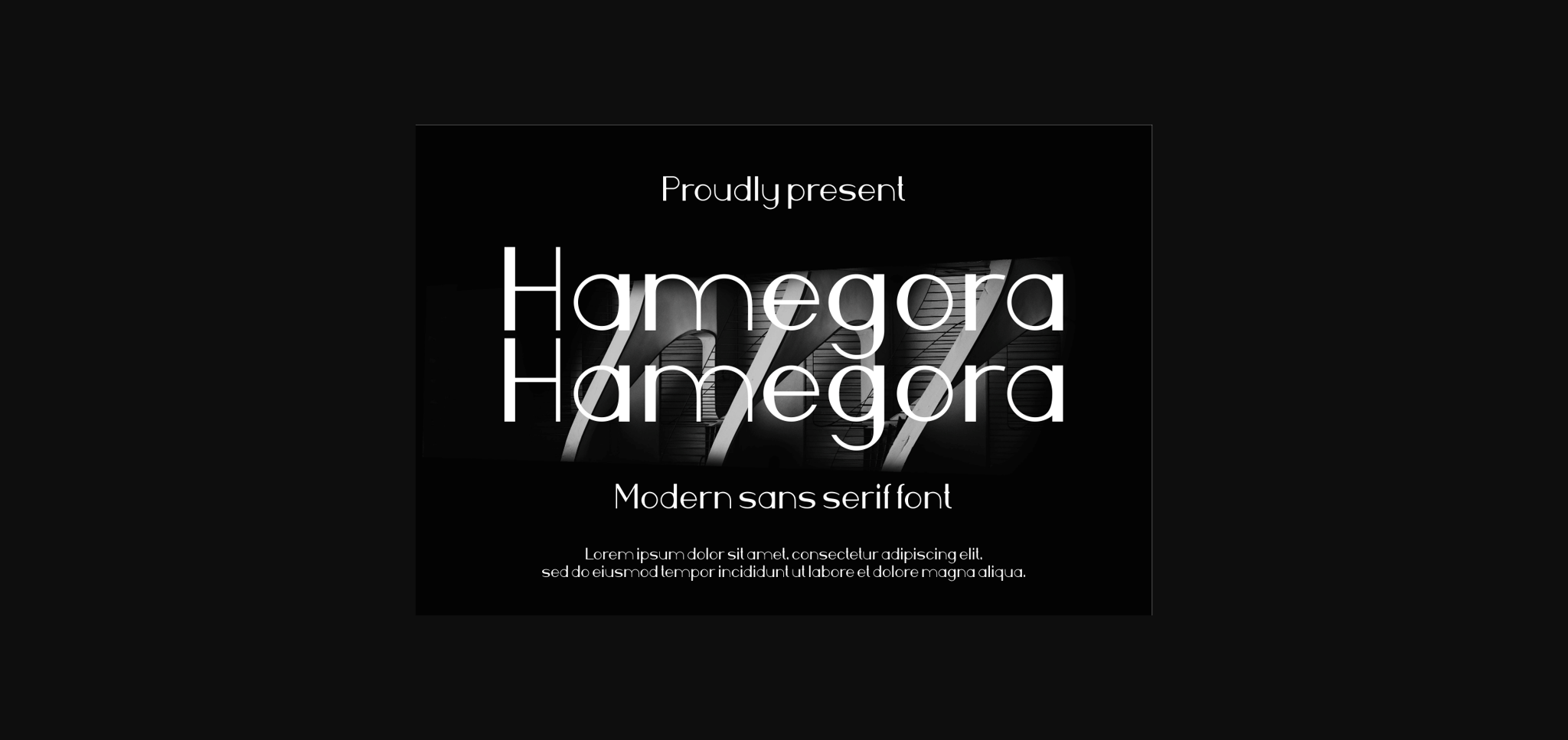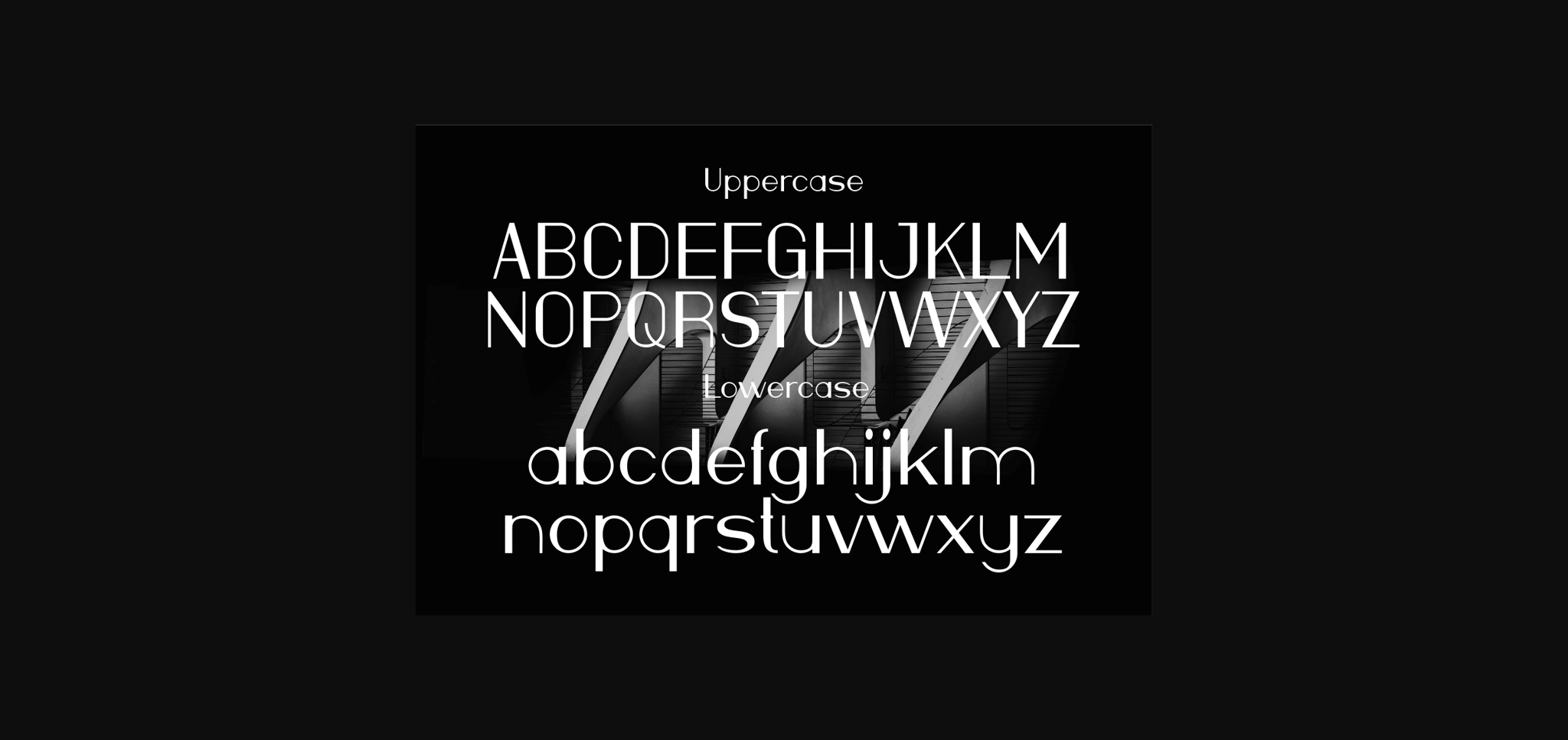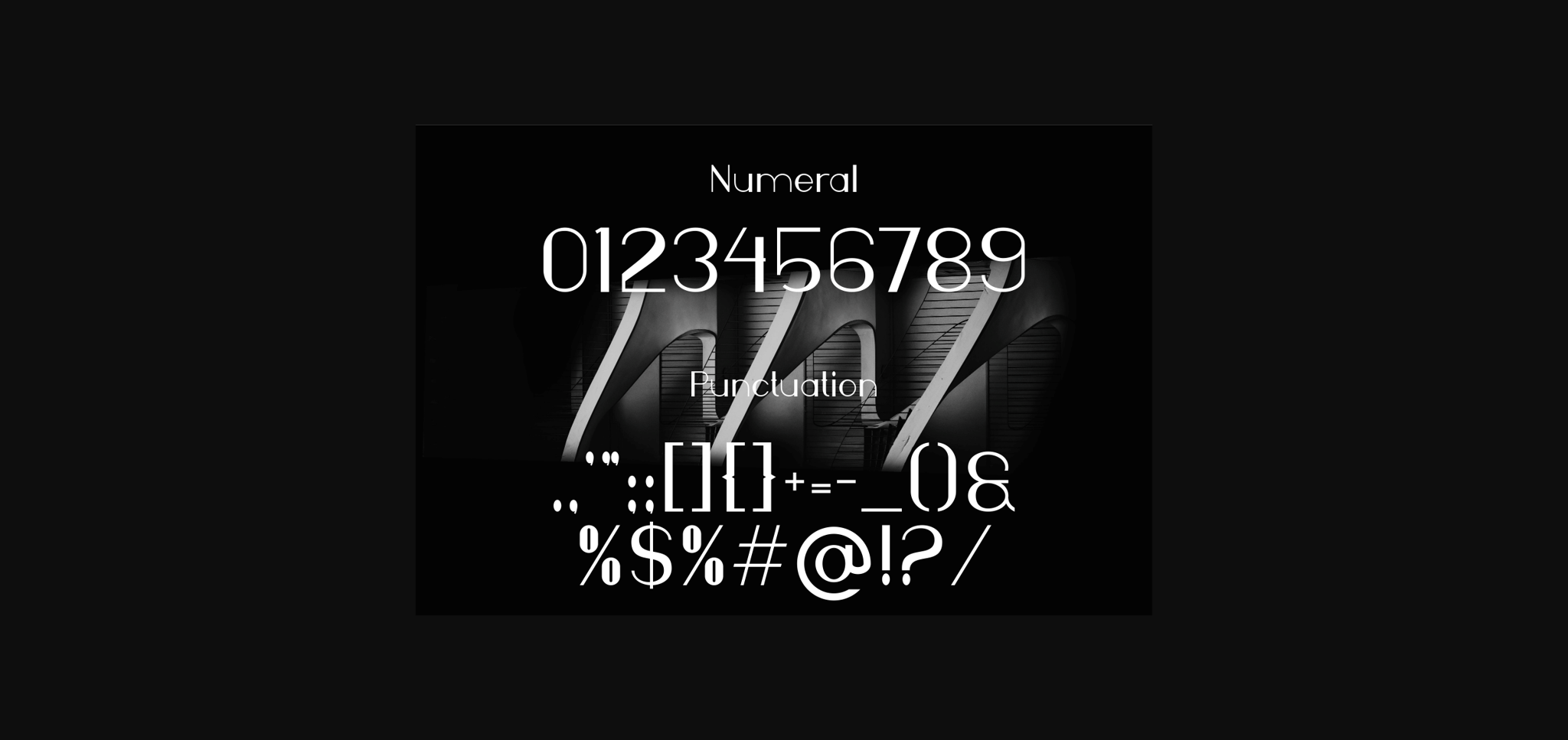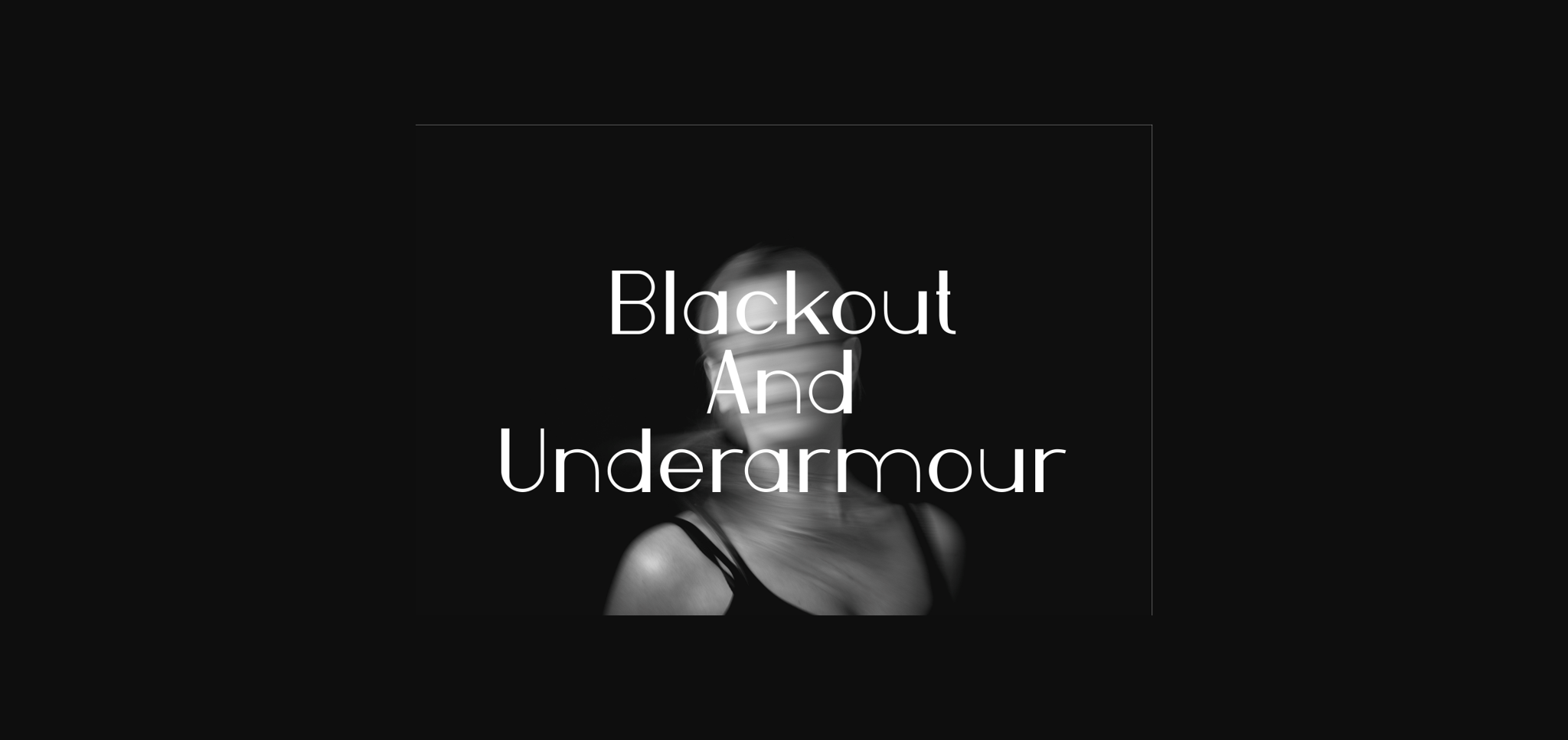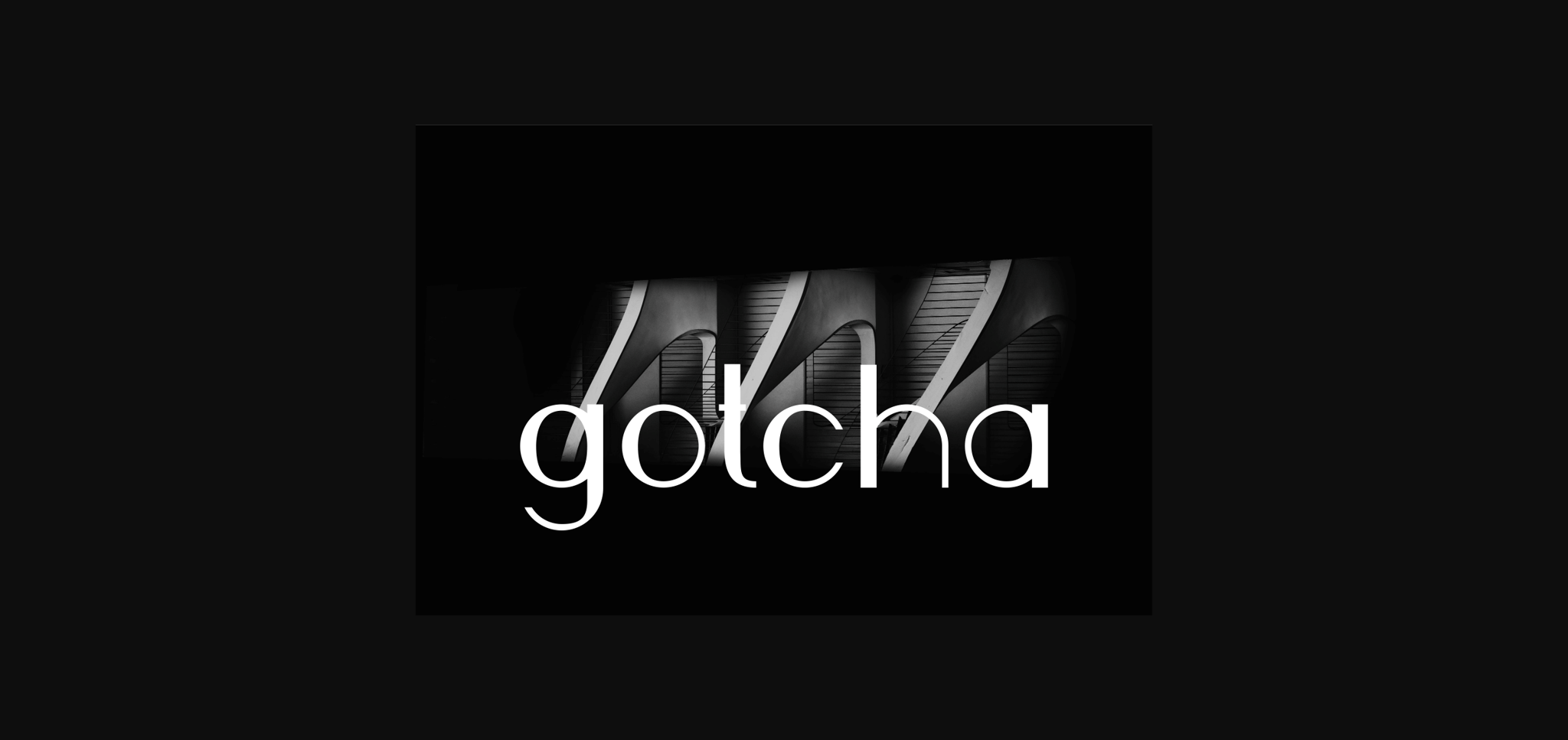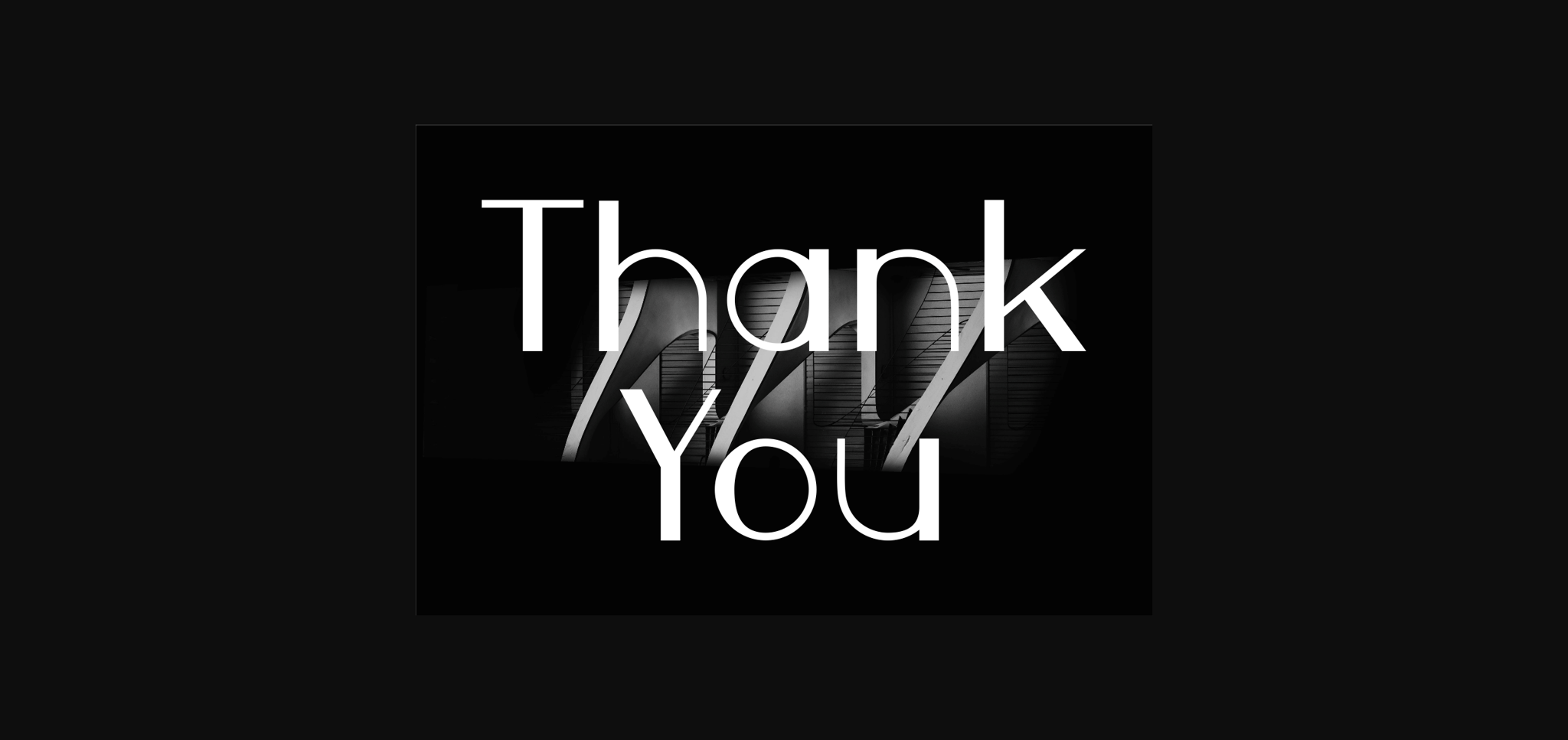
Hamegora Font
About Hamegora Font
Hamegora is an authentic and unique modern sans serif font that is perfect for professional and product branding needs. This font is suitable for any branding project such as quotes, logos, blog headers, posters, ribbons, letters, invitations, stationery and more.